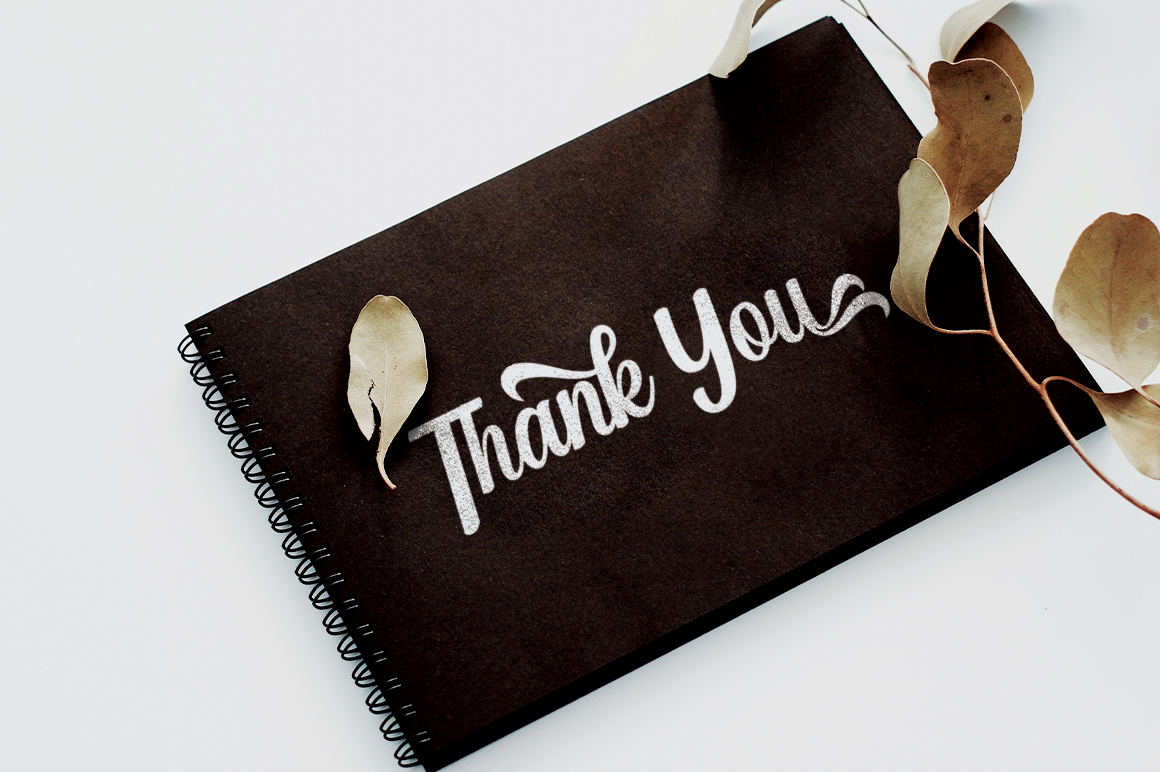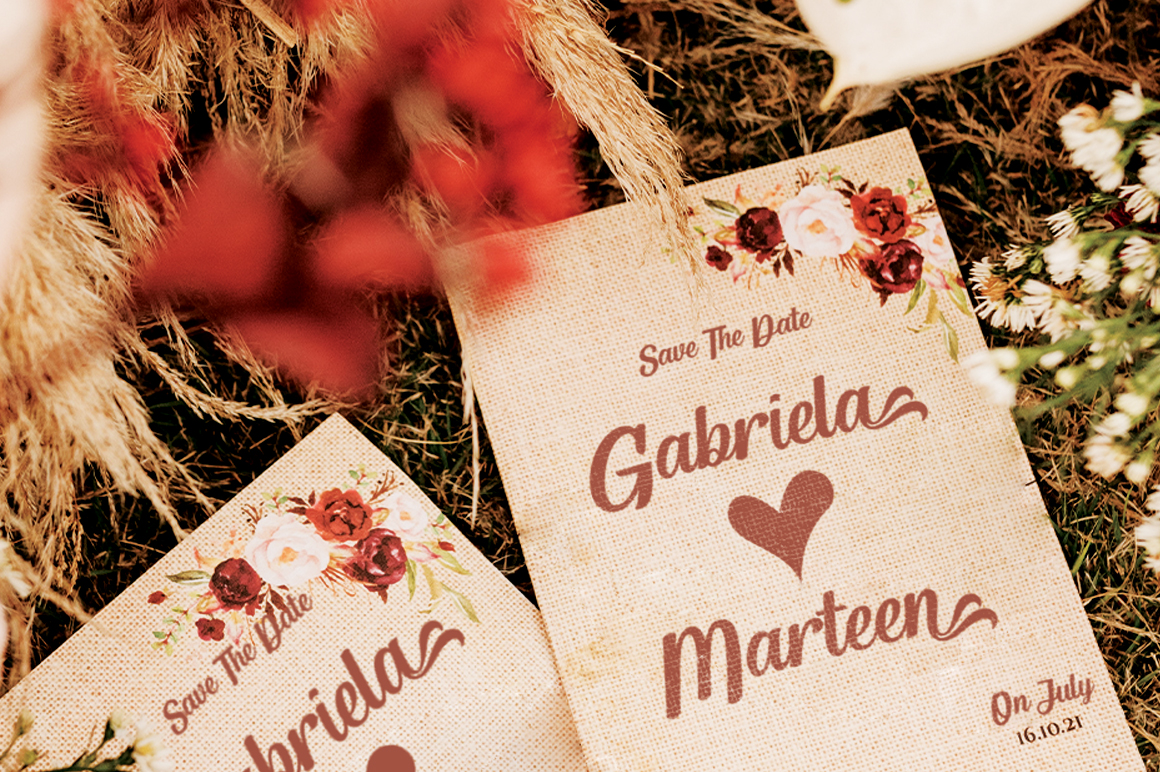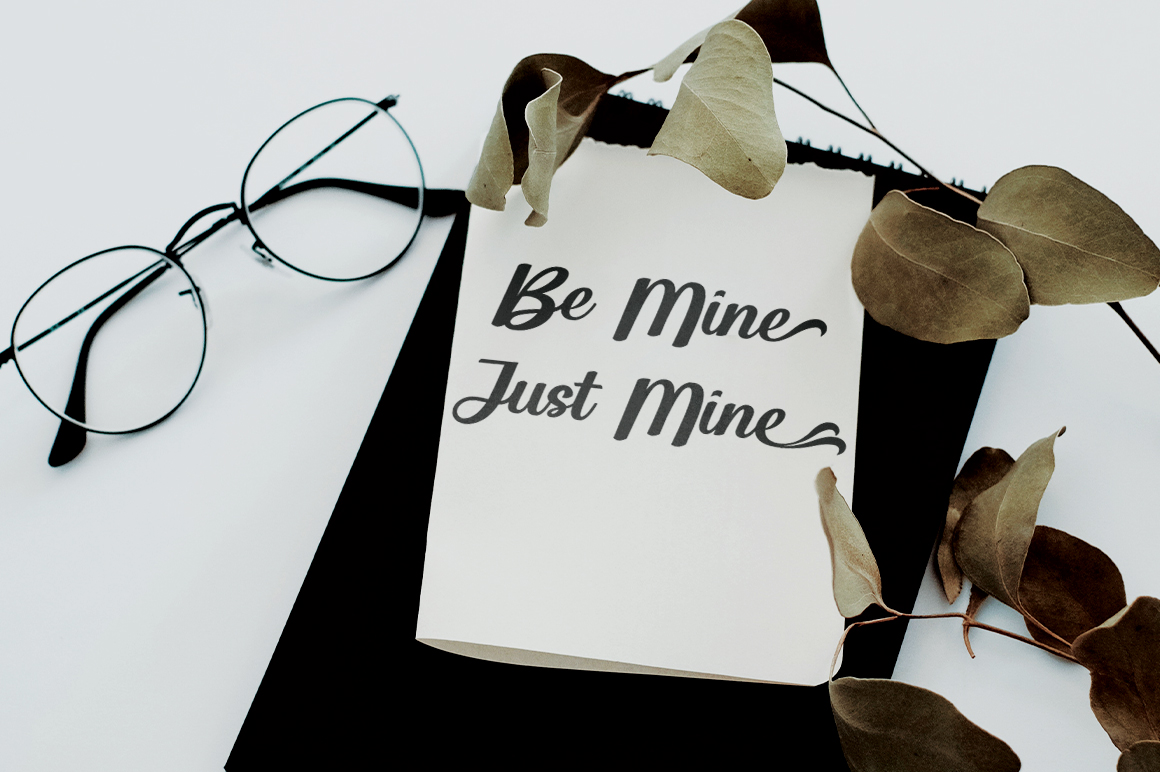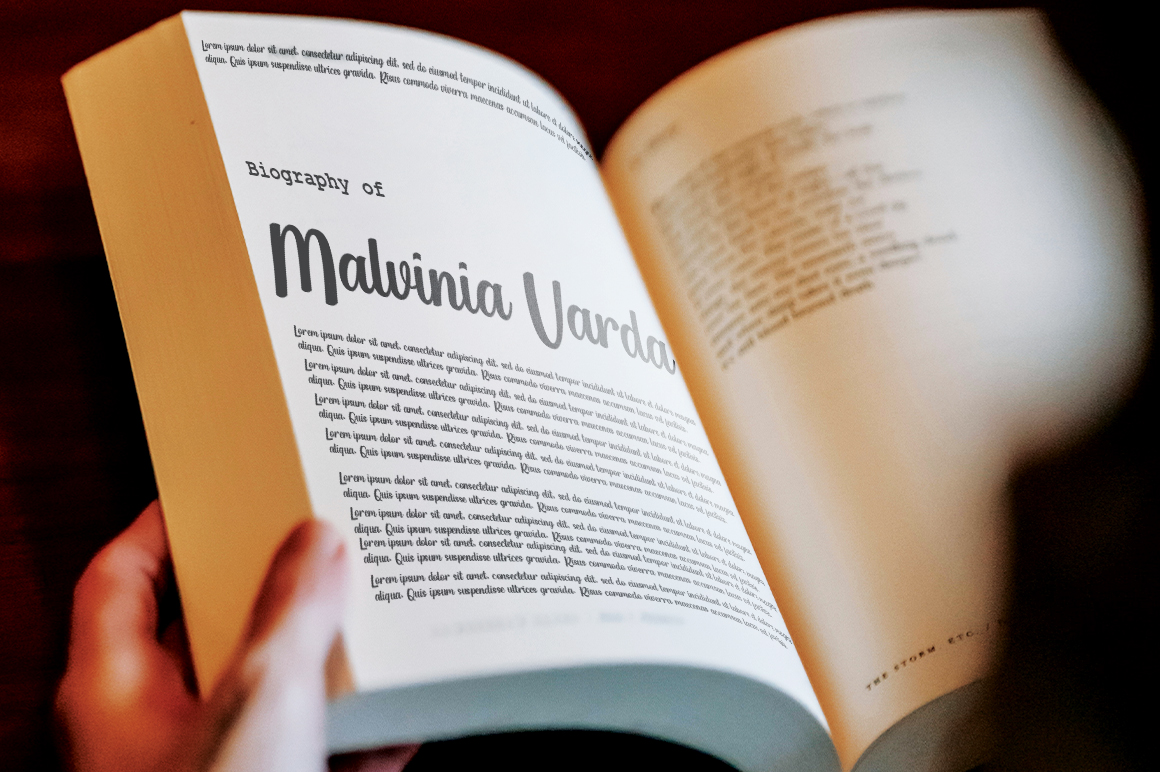
Blackhine Calligraphy Font
This is an elegant script font with multilingual and a contemporary atmosphere and impeccable form, inspired by a timeless classic calligraphy. Not too thin and not too thick, this font was designed to enhance the beauty of your projects. This font is very suitable for various design needs such as wedding invitations, t-shirt designs, and even Social Media or the web.